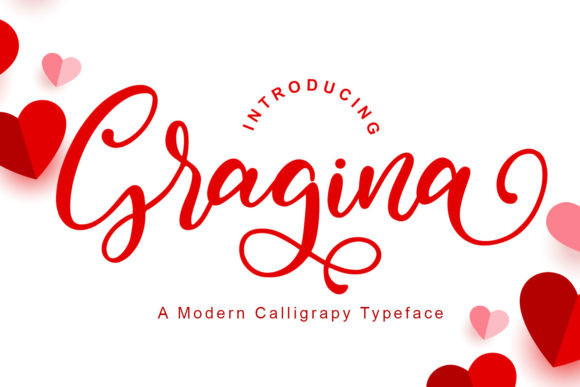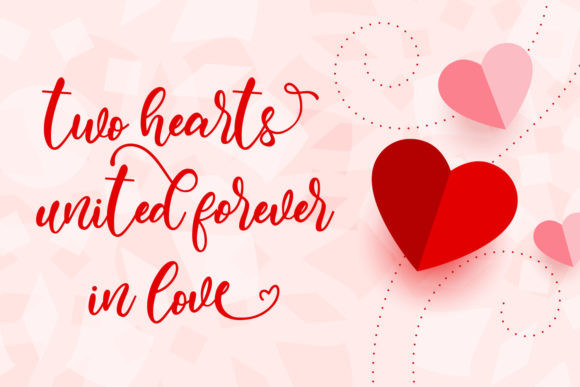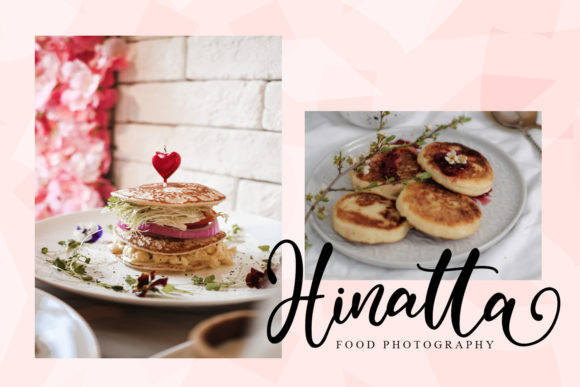
Gragina Font
Gragina is a flowing handwritten font, described by an elegant touch, perfect for your favorite projects. Fall in love with its incredibly distinct and timeless style and use it to create spectacular designs!